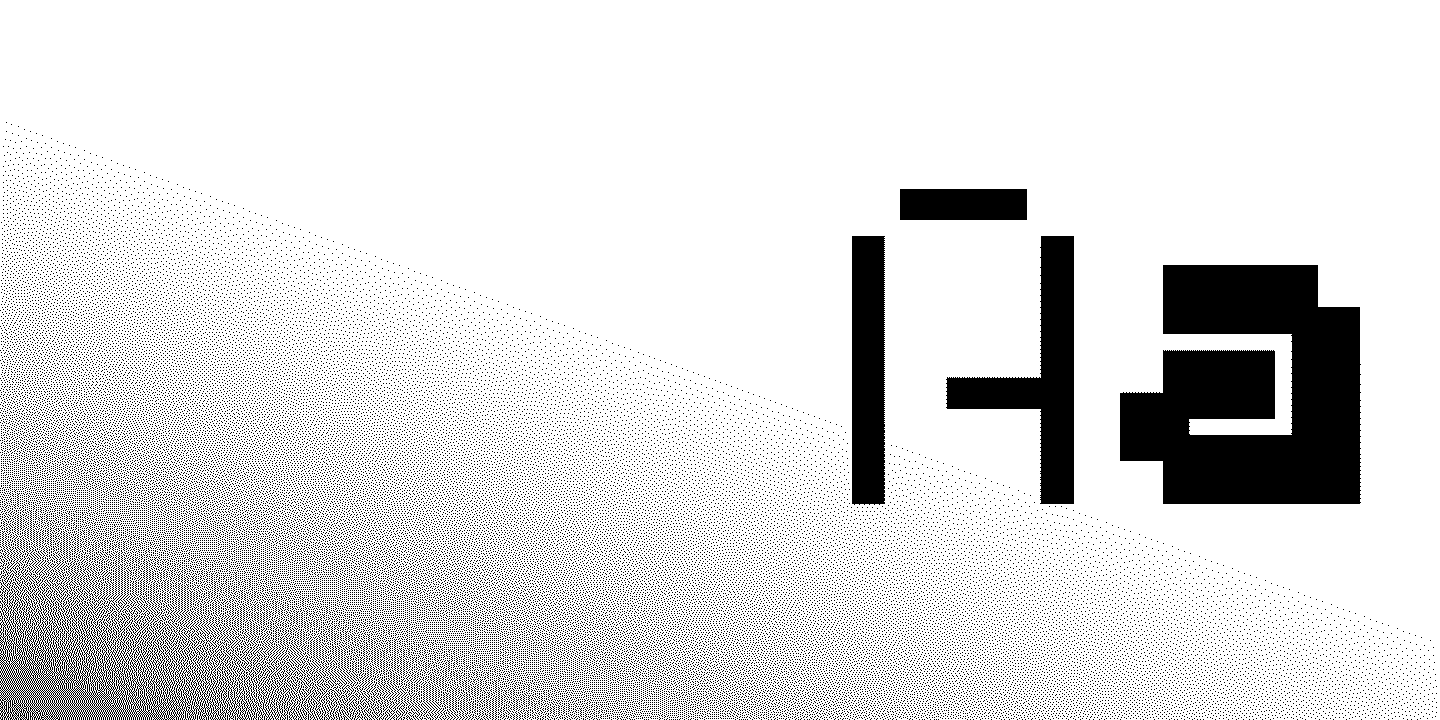
The Webpixel Bitmap Font excels in various design applications including retro gaming website branding, pixel art digital marketing, nostalgic web design communications, bitmap graphics studio materials, retro computer interface identities, pixel-perfect design promotions, 8-bit gaming event signage, digital pixel art documentation, retro tech company materials, and distinguished pixel projects that demand bitmap authenticity and digital sophistication.
What makes the Webpixel Bitmap Font exciting is its precise embodiment of pixel art heritage and digital bitmap craftsmanship through letterforms that capture the essence of early computer graphics and the nostalgic appeal of pixel-perfect design. This typeface demonstrates exceptional digital character through carefully constructed pixel characters that suggest the systematic grid of bitmap graphics, the technical precision of early digital design, and the nostalgic charm that makes pixel art so visually distinctive and culturally significant in digital design history. The font's bitmap personality makes it perfect for tech companies and digital artists seeking to communicate pixel authenticity, retro digital expertise, and the kind of bitmap precision that creates memorable pixel art experiences through typography that literally pixels with digital perfection.
The Webpixel Bitmap Font family typically includes pixel-perfect weight variations that enhance the bitmap aesthetic, featuring digital styling options and extended character sets optimized for web communications and digital applications. These family options often include pixel-inspired alternates, digital symbols, and bitmap decorative elements that provide designers with comprehensive tools for creating authentically digital typography that celebrates pixel art while maintaining contemporary design appeal and digital credibility.
Digital design professionals and retro gaming organizations consistently select Webpixel Bitmap Font Free Download for projects requiring typography that communicates bitmap authenticity and pixel sophistication. This typeface delivers exceptional performance in digital marketing, retro gaming branding, and pixel communications where establishing nostalgia and creating authentic bitmap atmosphere is essential for retro digital engagement. The font's pixel character makes it particularly effective for gaming and web design applications. Download Webpixel Bitmap Font Free Download today to access this digitally precise typeface that transforms pixel communications with its bitmap elegance and digital sophistication, creating compelling retro experiences that honor the magnificent heritage of early digital graphics while celebrating the pixel precision that defines authentic bitmap art and digital design excellence.